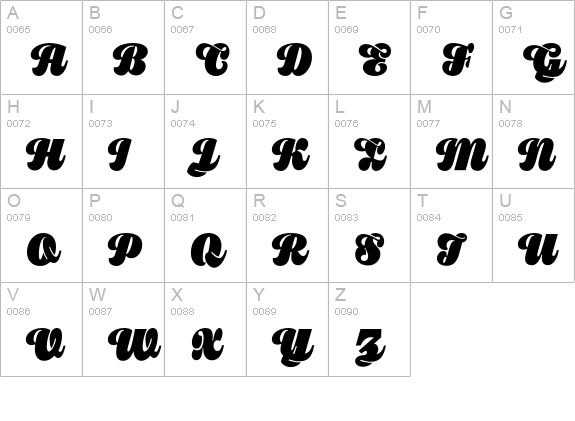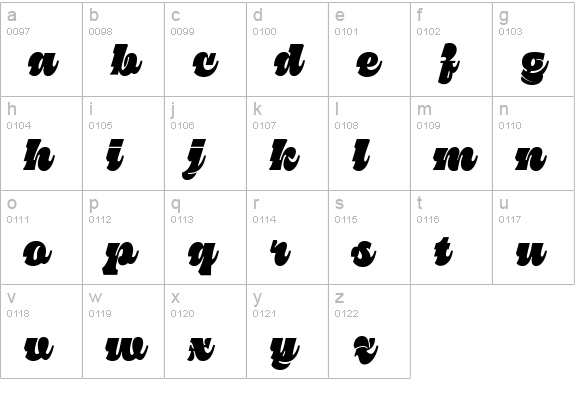
Pika ultra script is an extreme-weight, display variant in the Pika typeface family \xE2\x80\x94 well suited to extreme display use where maximum visual weight is required.